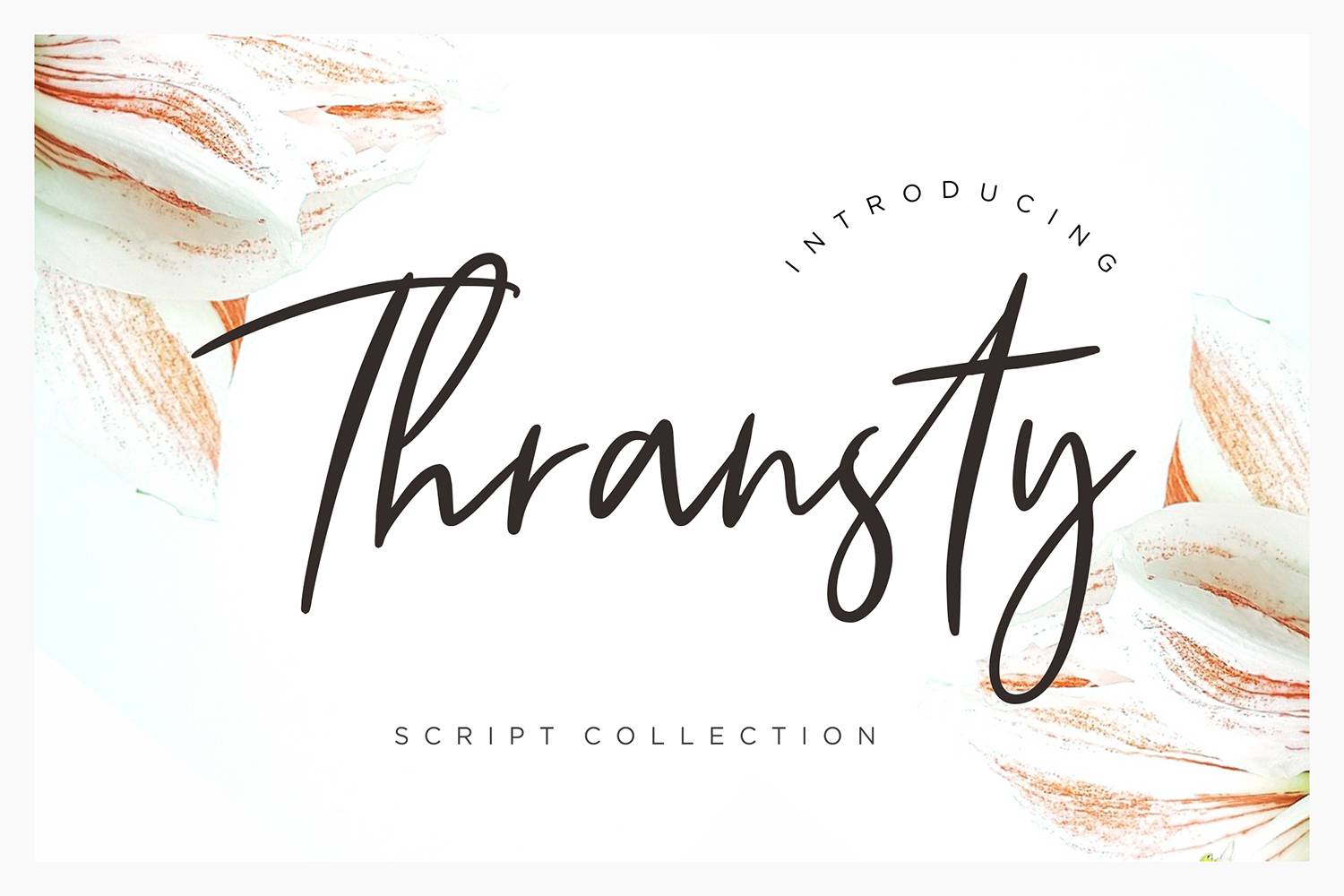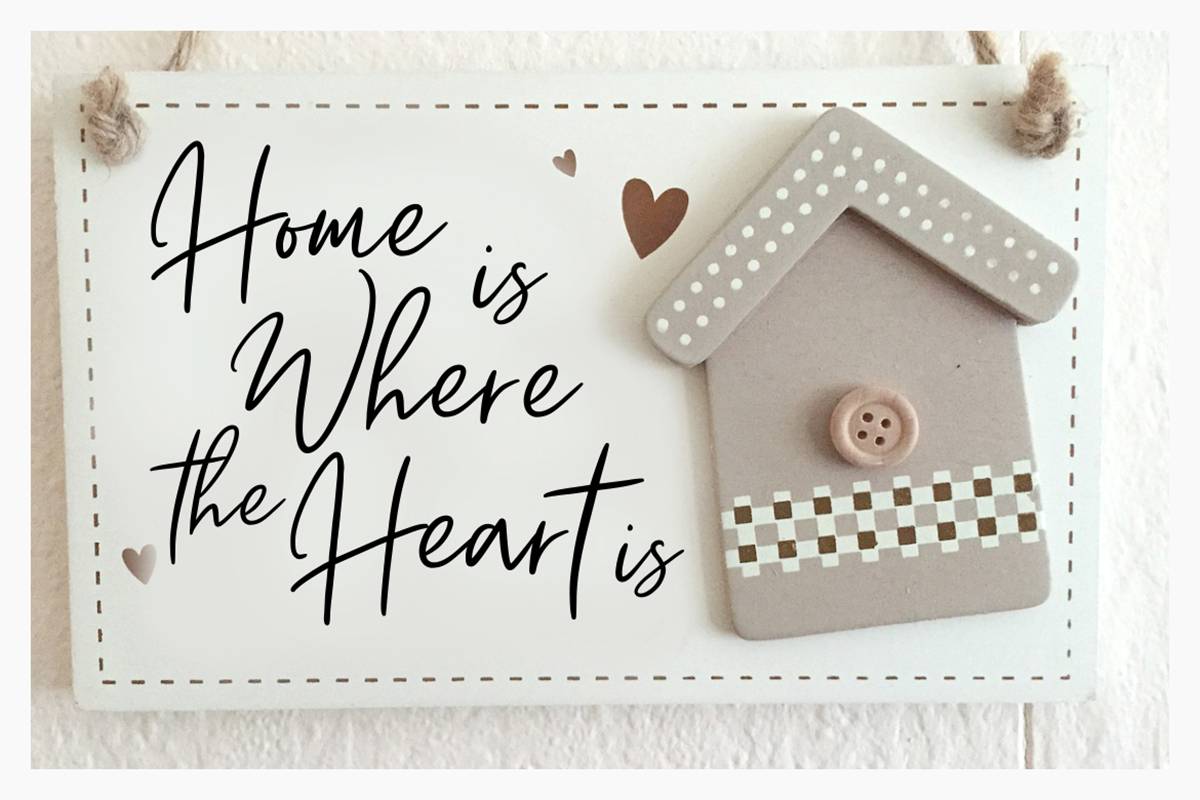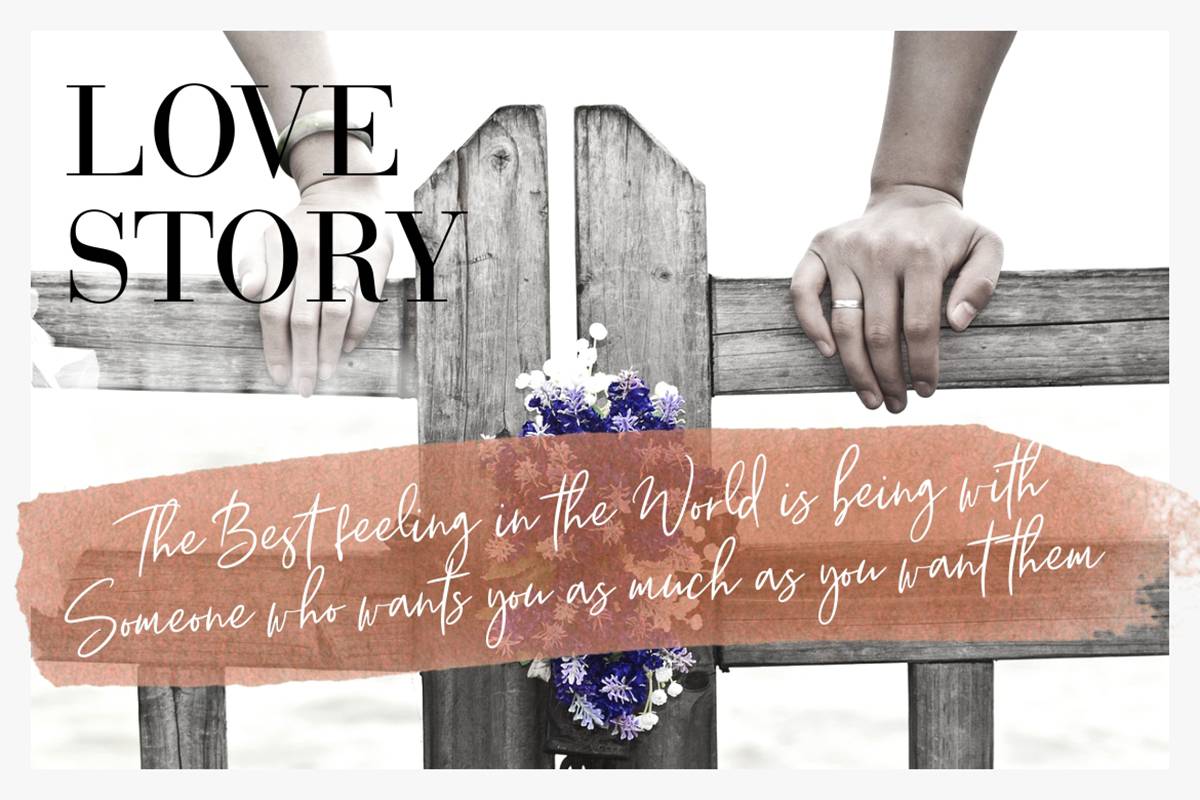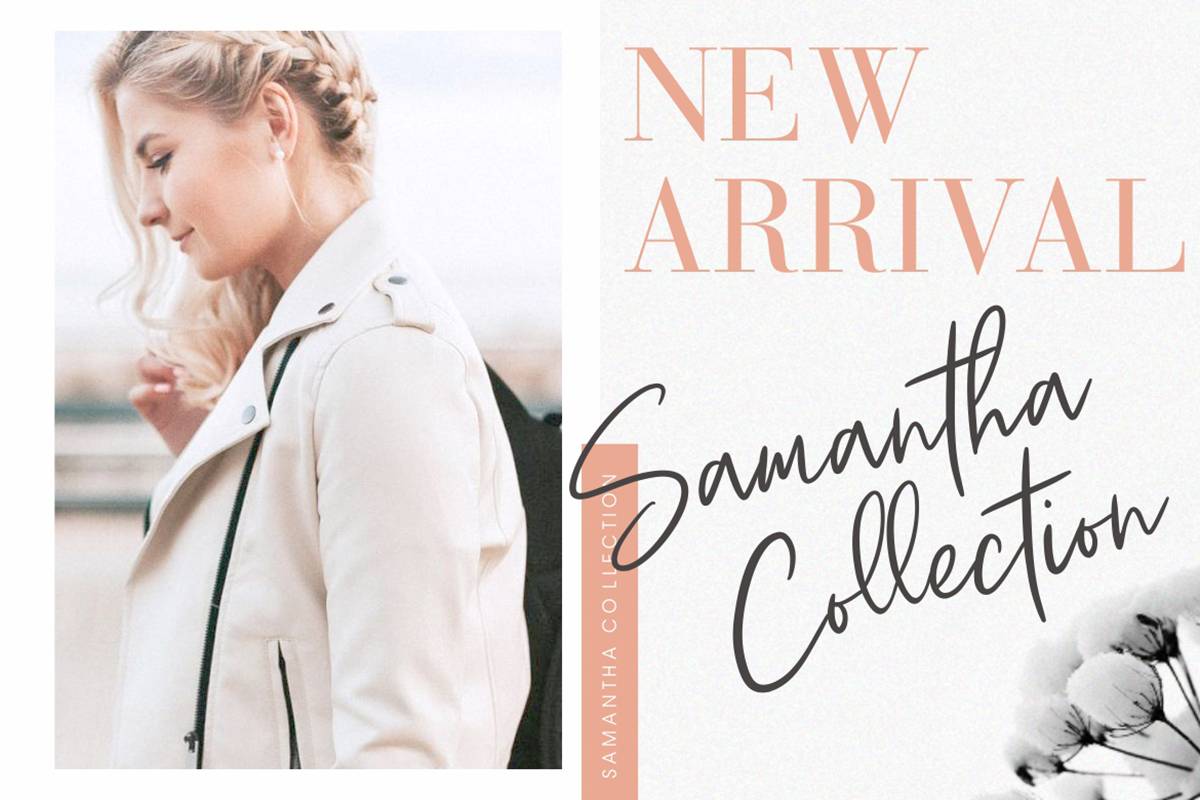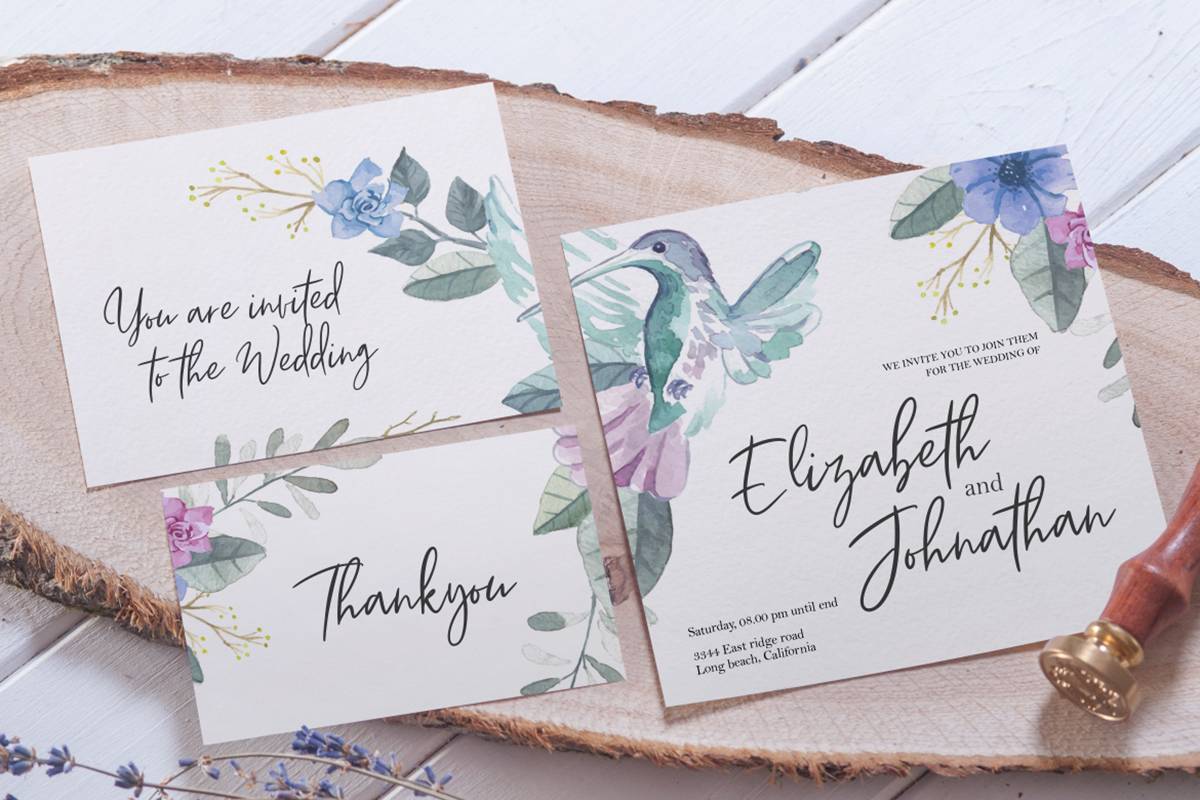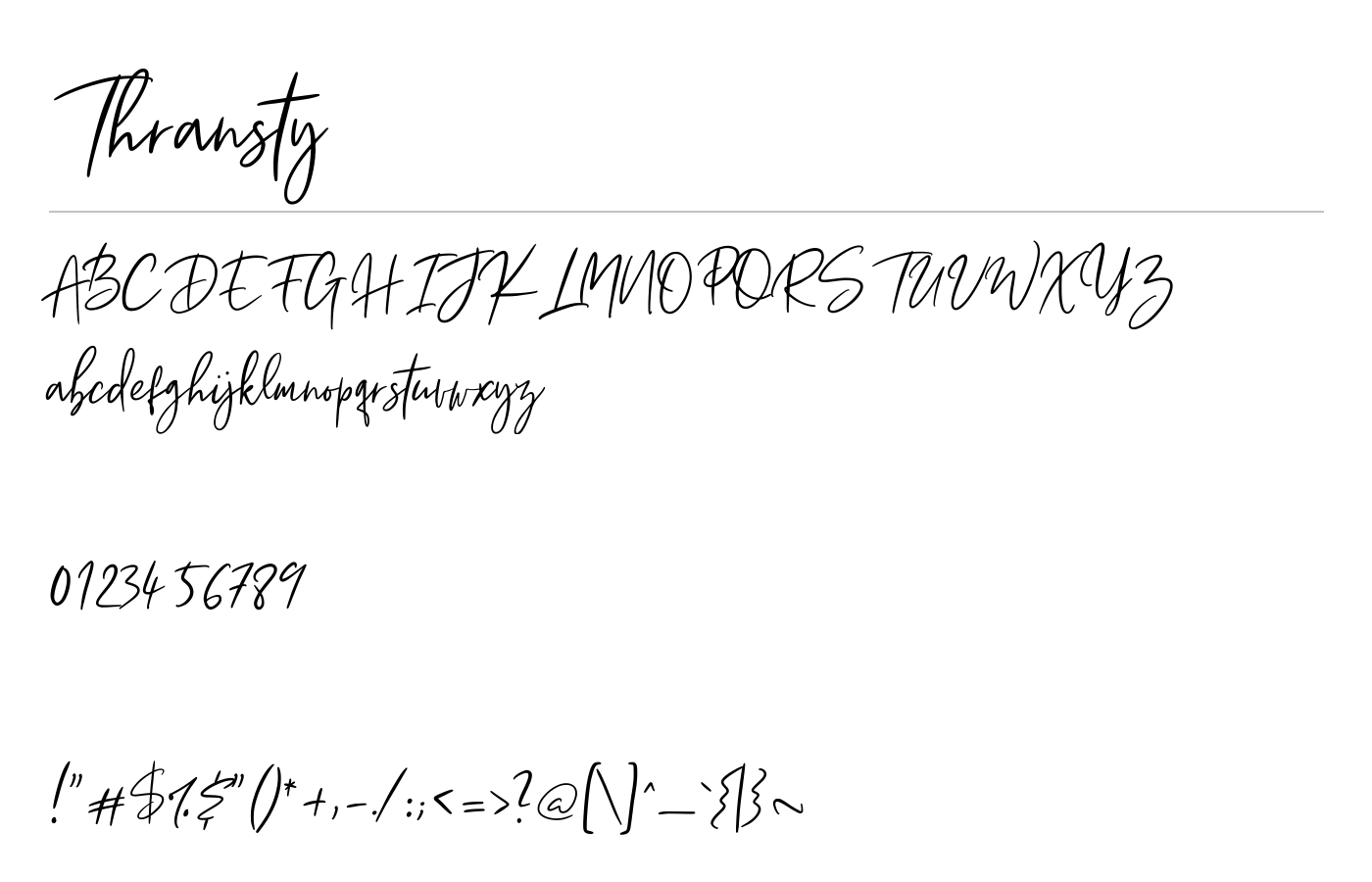
Thransty is a slender, elegant script font characterized by its flowing, hand-drawn style with tall, narrow letterforms and delicate strokes. It exudes a modern, sophisticated charm that works beautifully for branding, invitations, and stylish editorial designs where a personal, graceful touch is desired. This font’s casual yet refined look makes it ideal for projects seeking a natural, artistic vibe without sacrificing readability.
Thransty Font
About Thransty Font